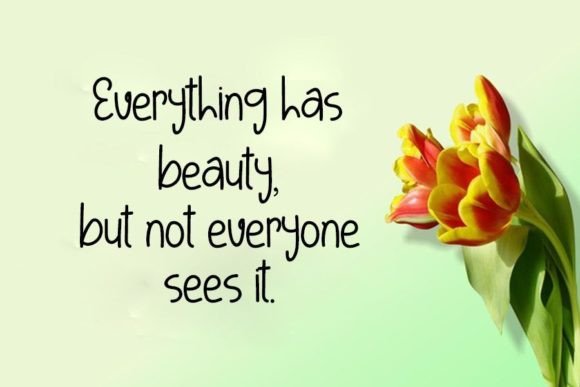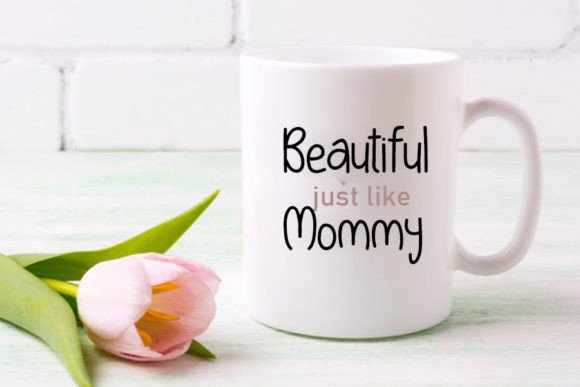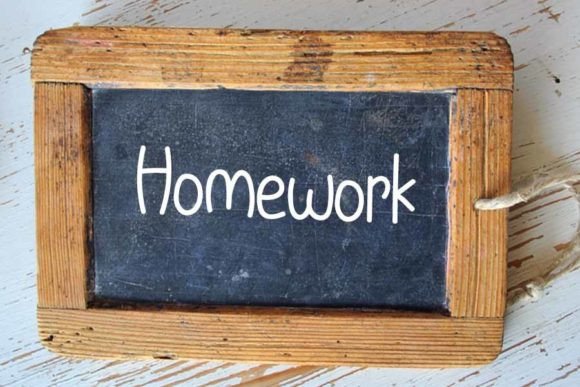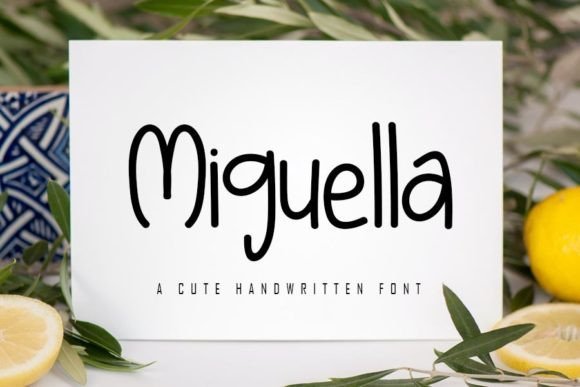
Introduction to Miguella Font
Miguella is a neat and simple handwritten font.
Whether you’re looking for fonts for Instagram or calligraphy scripts for DIY projects, this font will turn any creative idea into a true piece of art .
Key Features of Miguella Font
Why Choose Miguella Font?
Miguella Font offers exceptional quality and versatility, making it a valuable addition to your design toolkit. Whether you’re creating for personal projects or commercial use, Miguella Font delivers professional results.